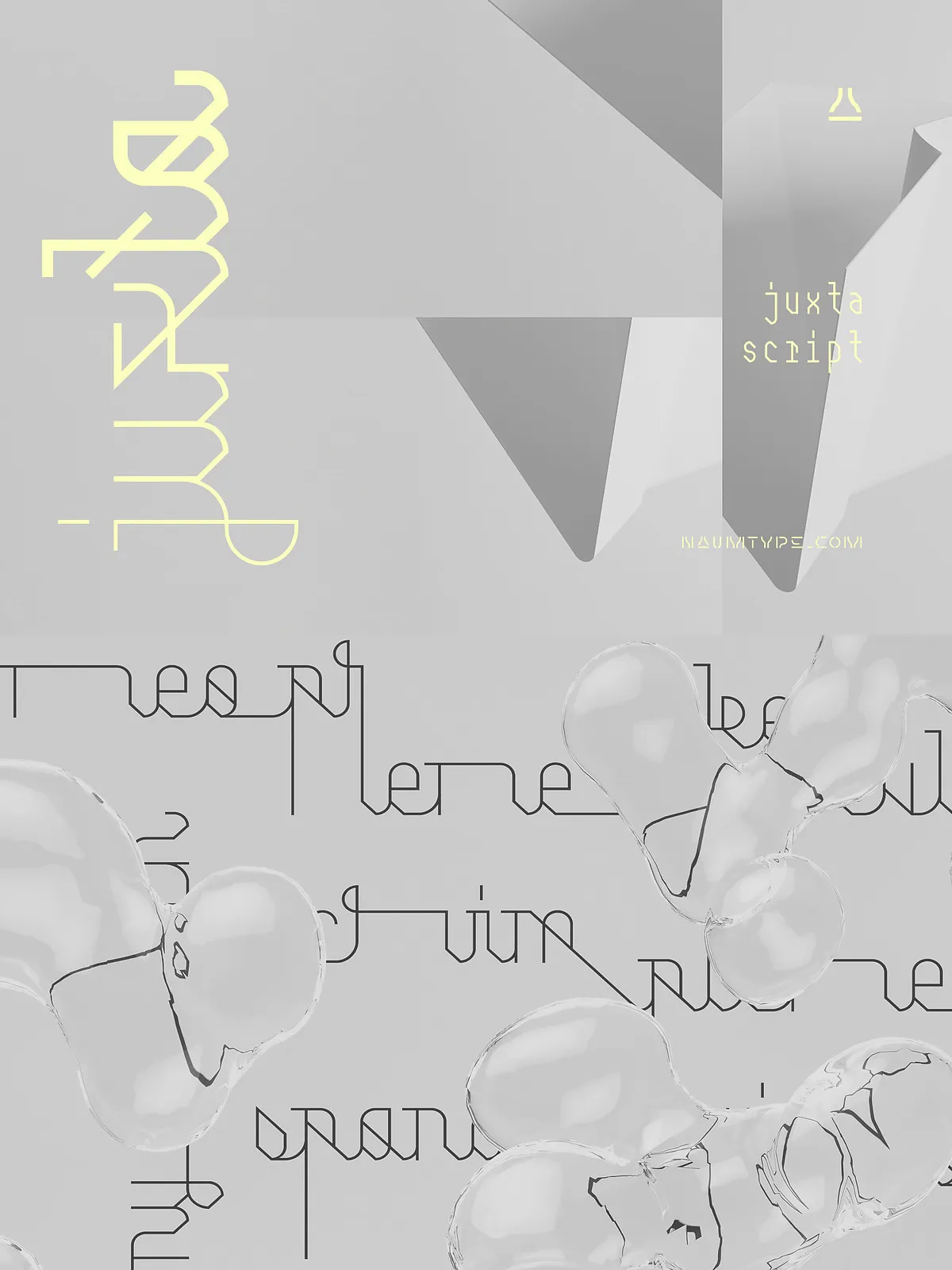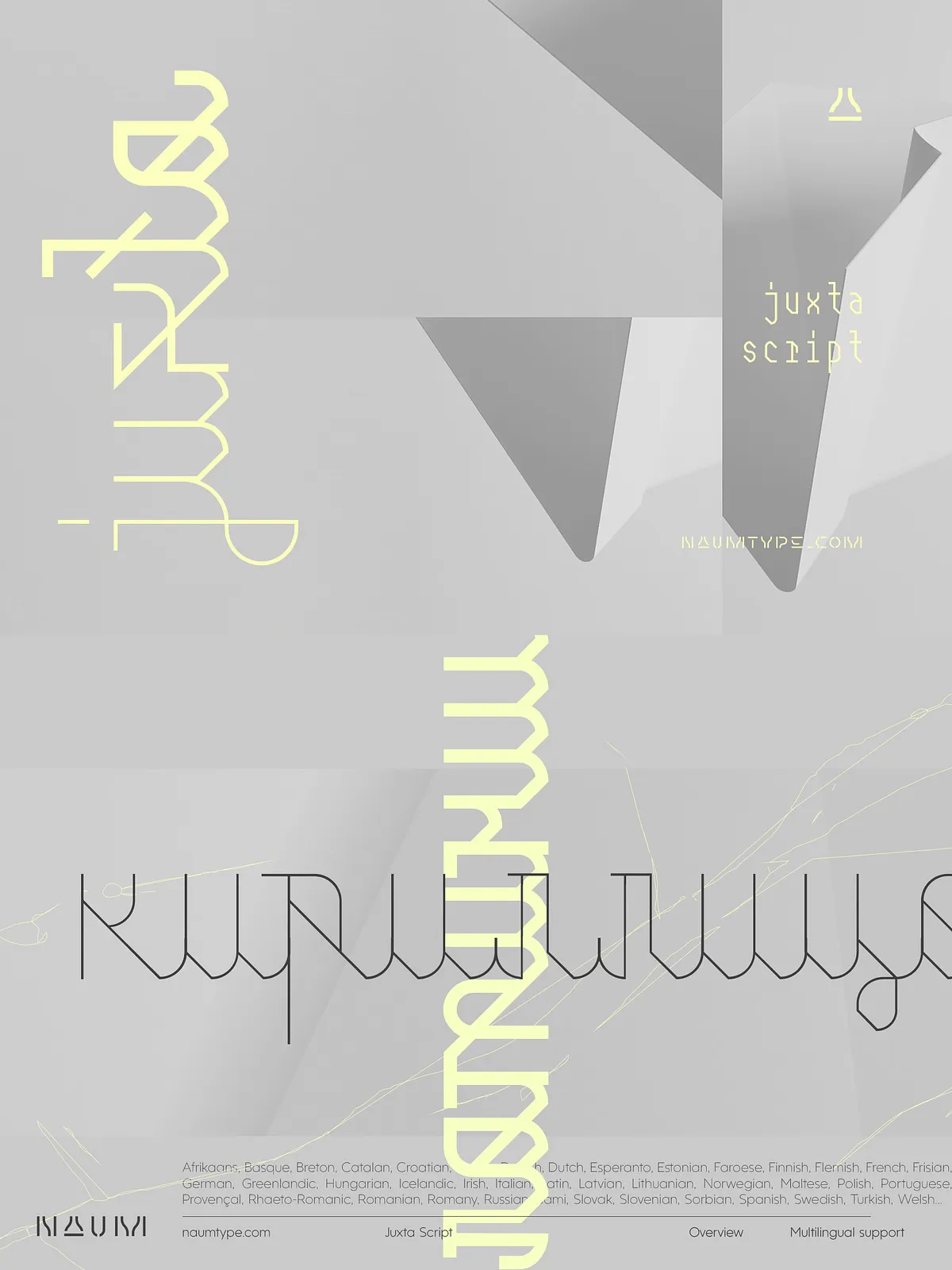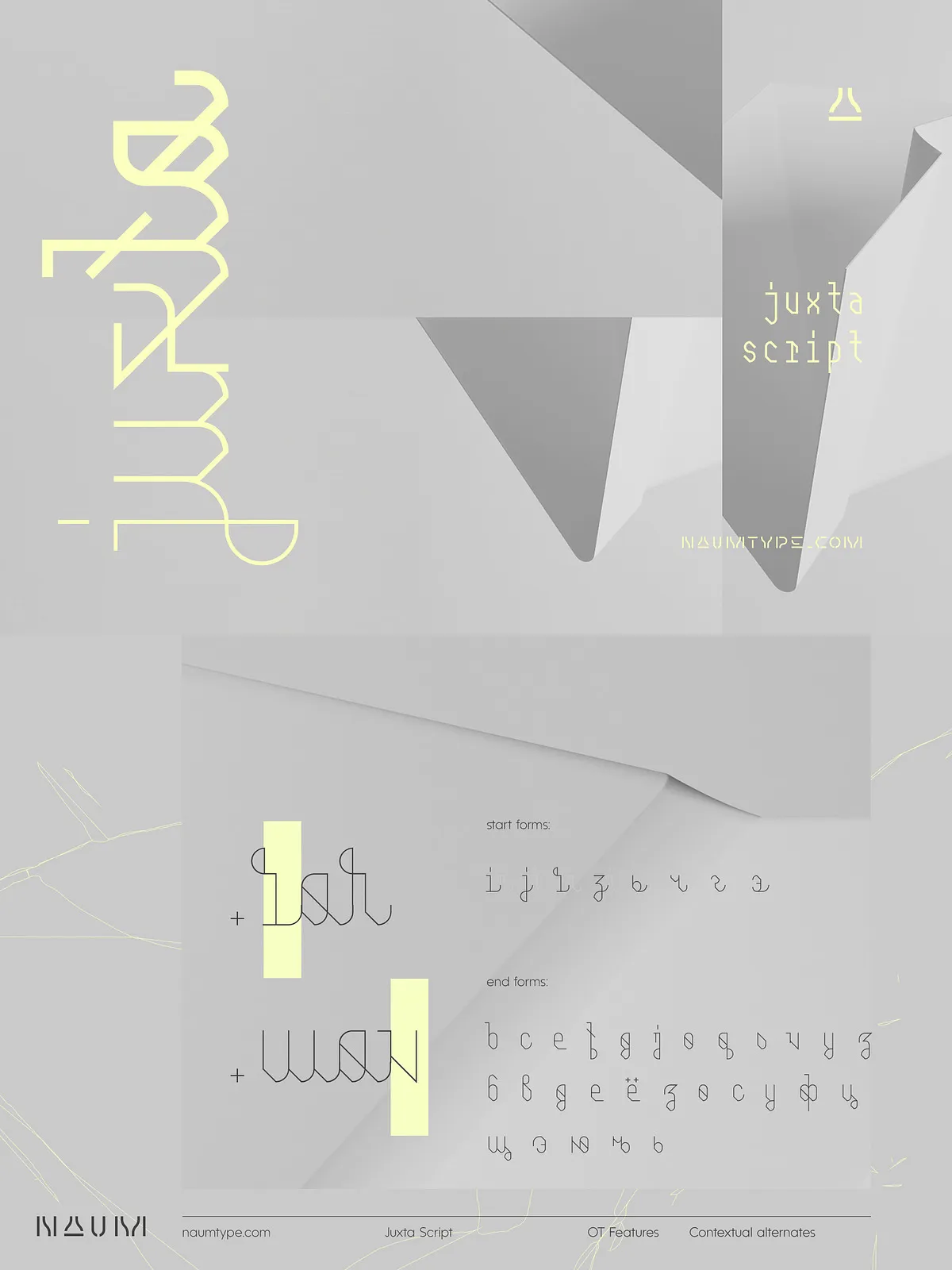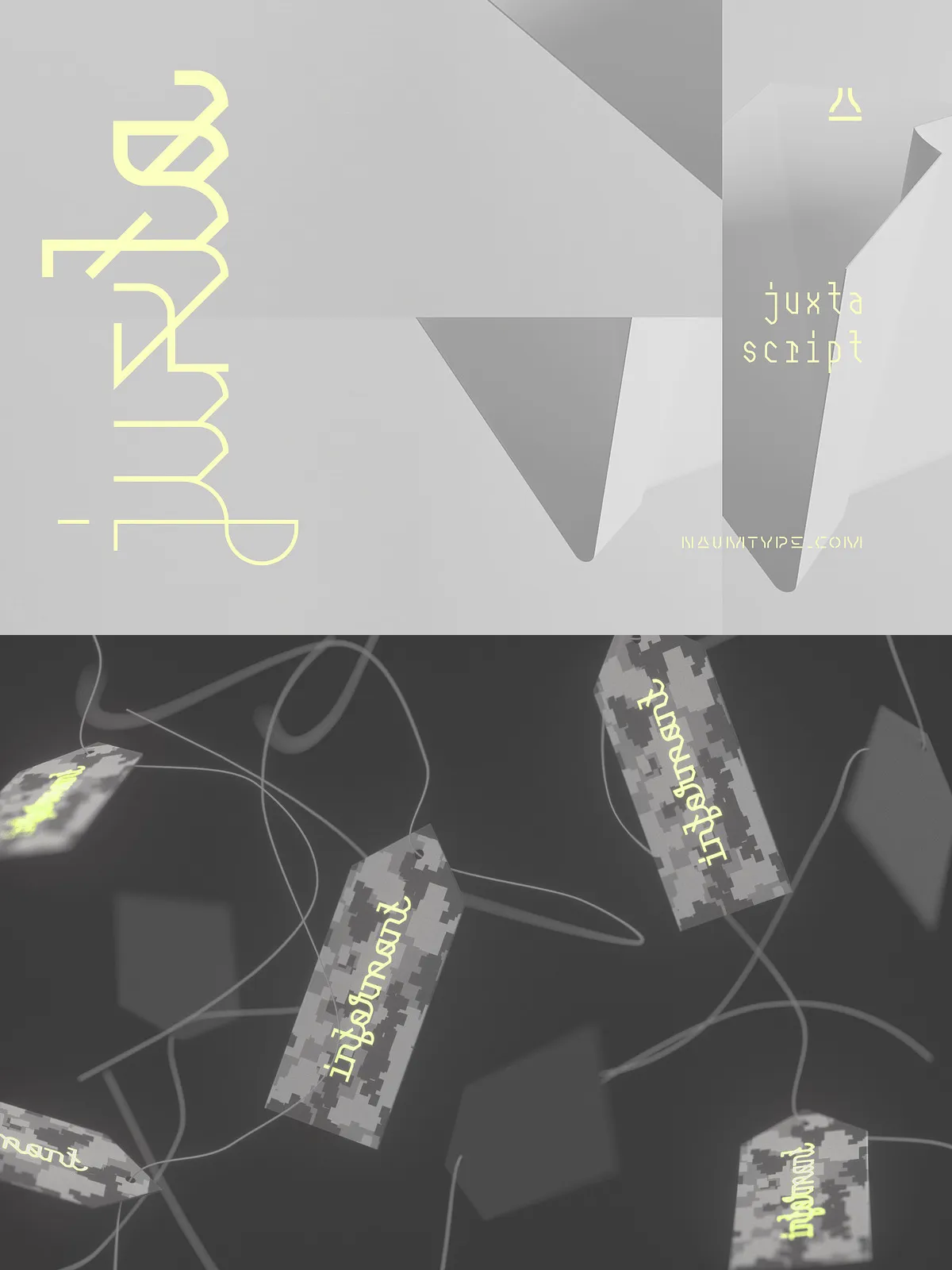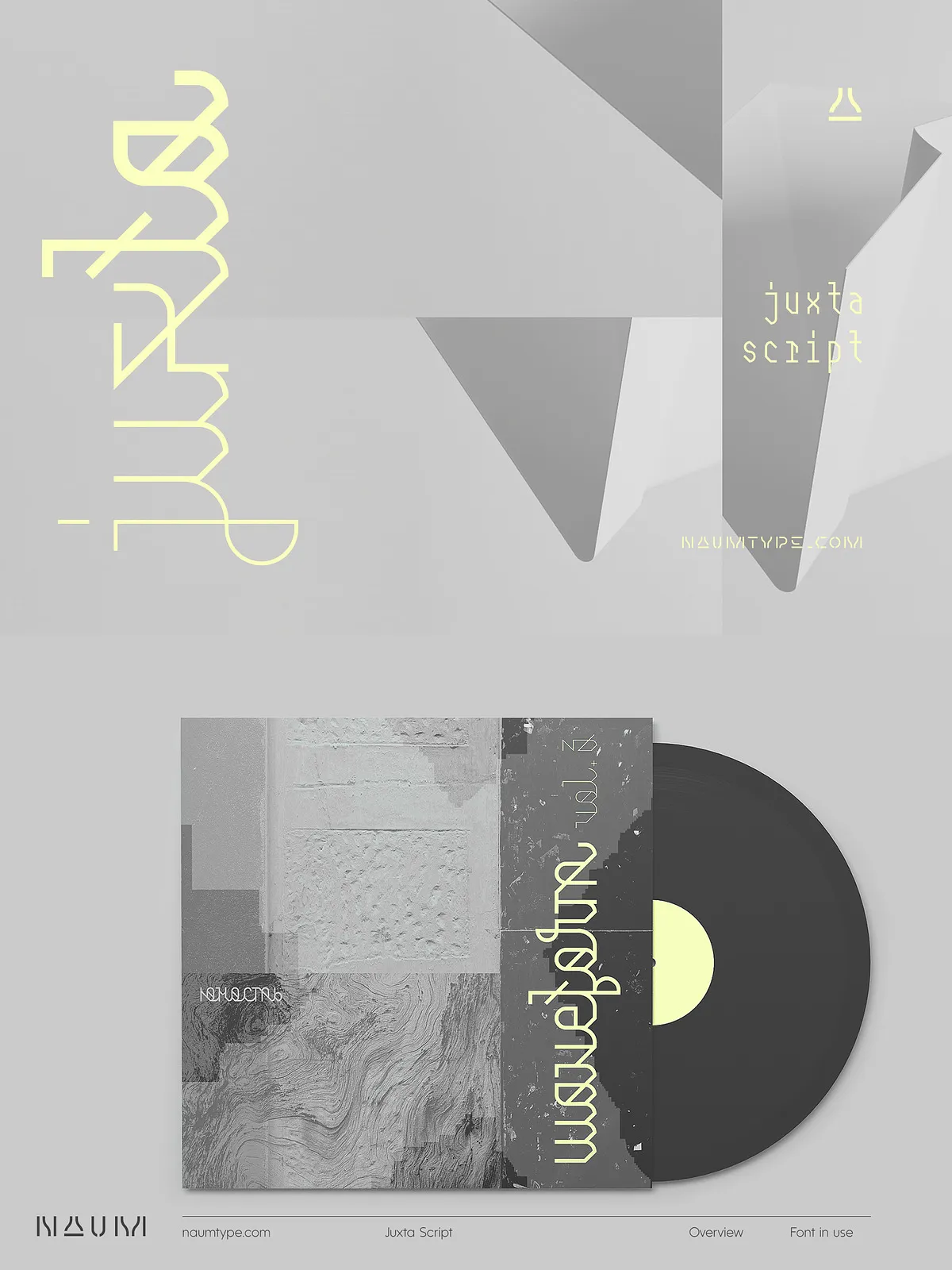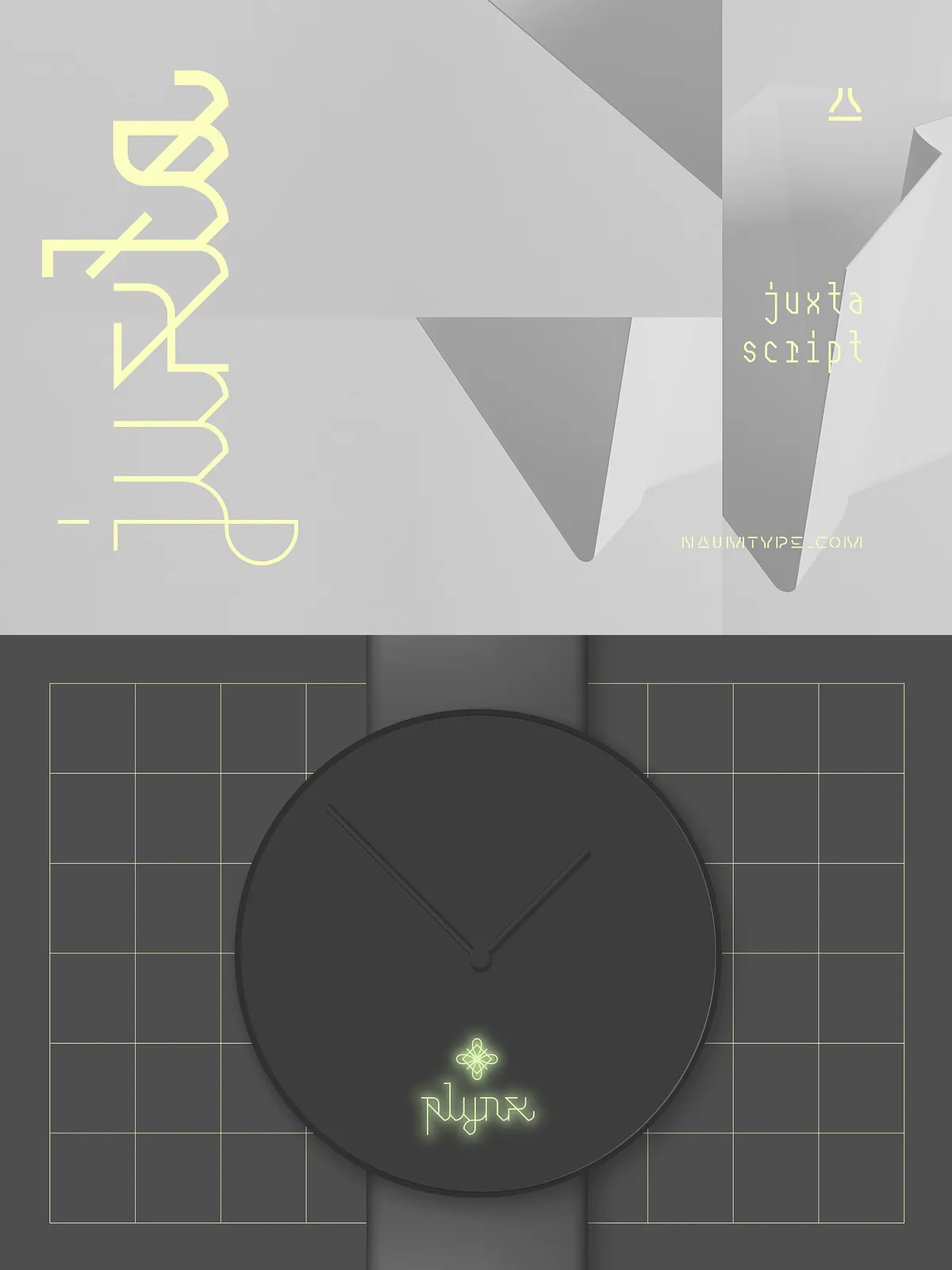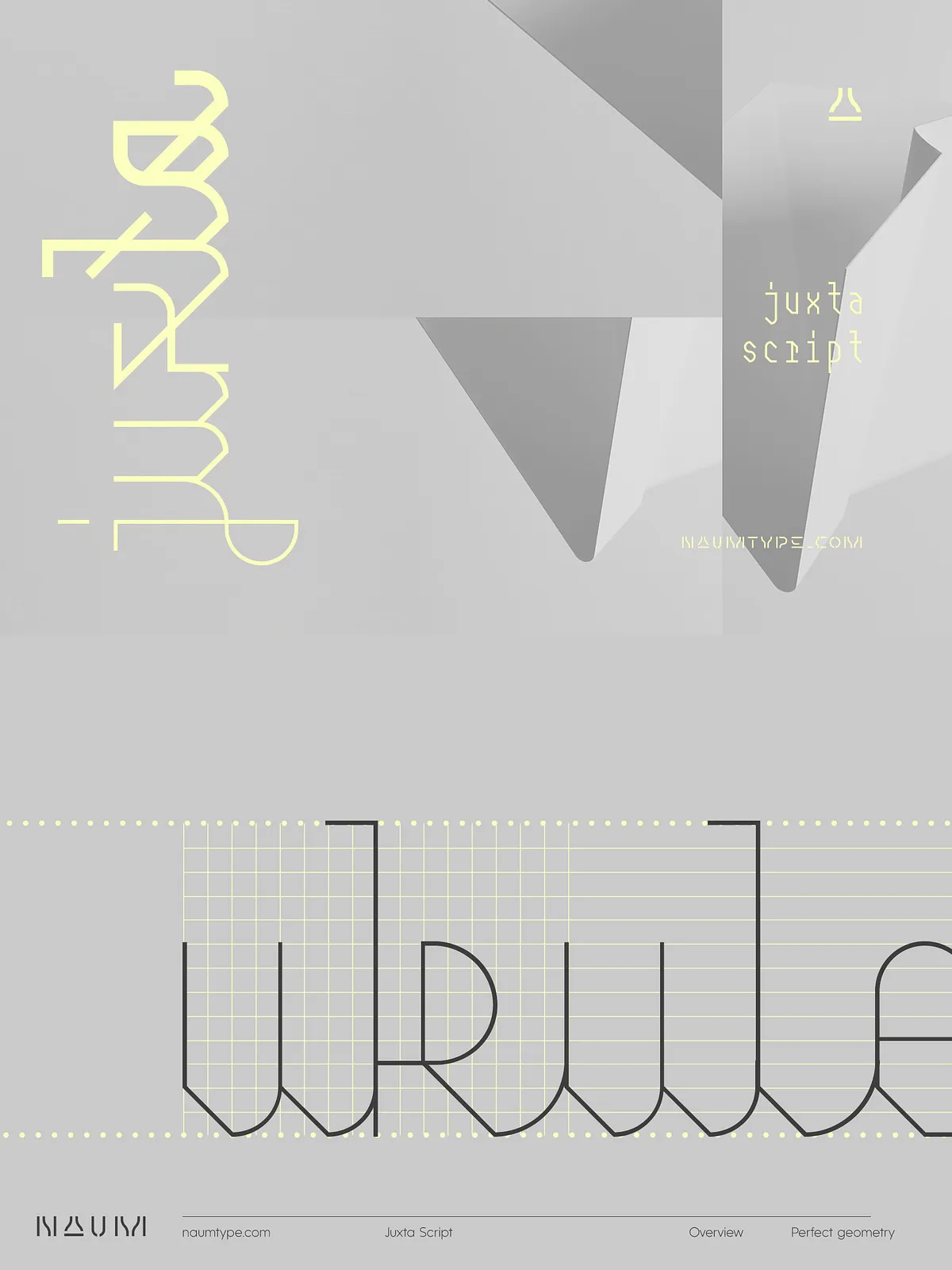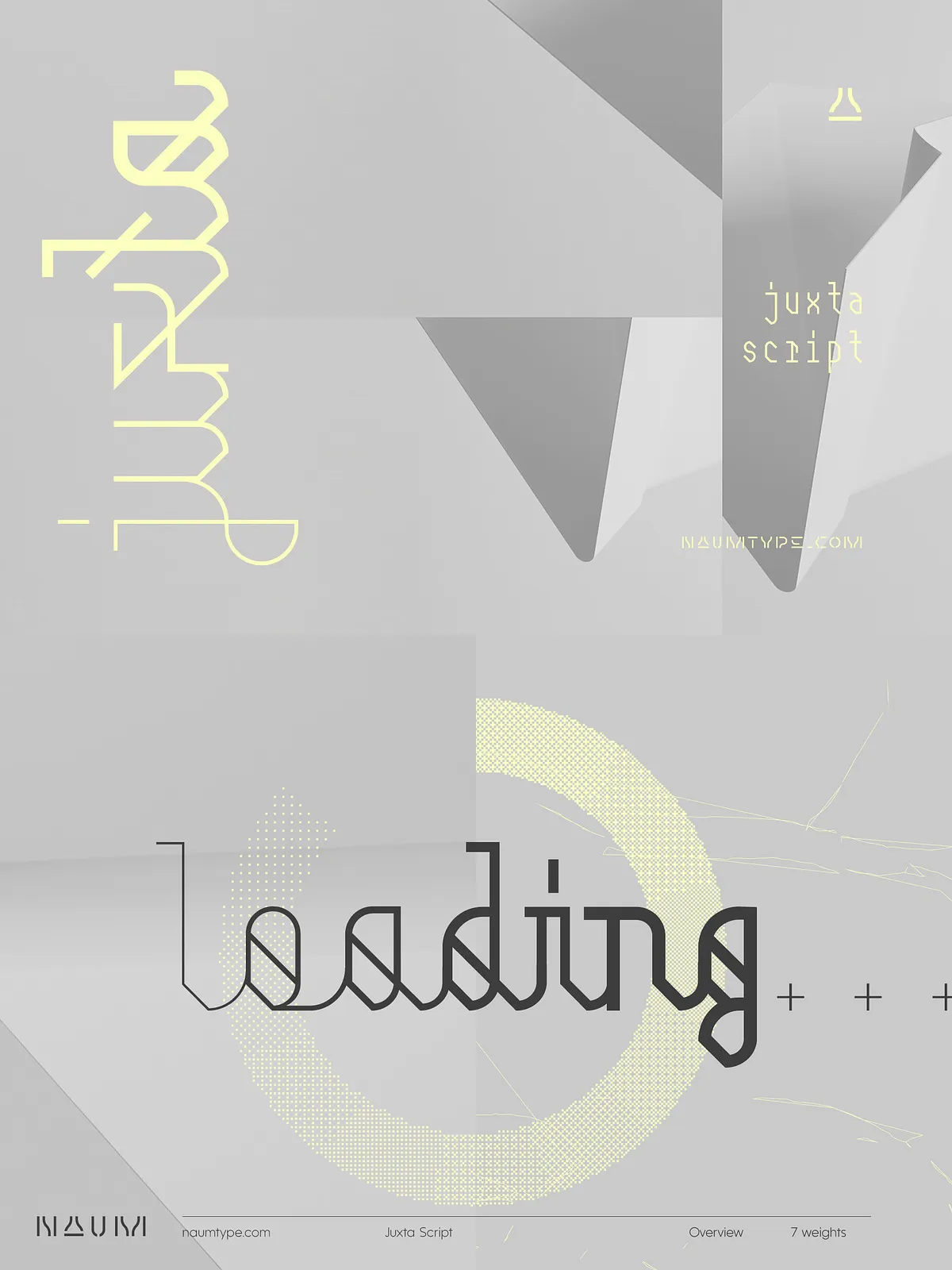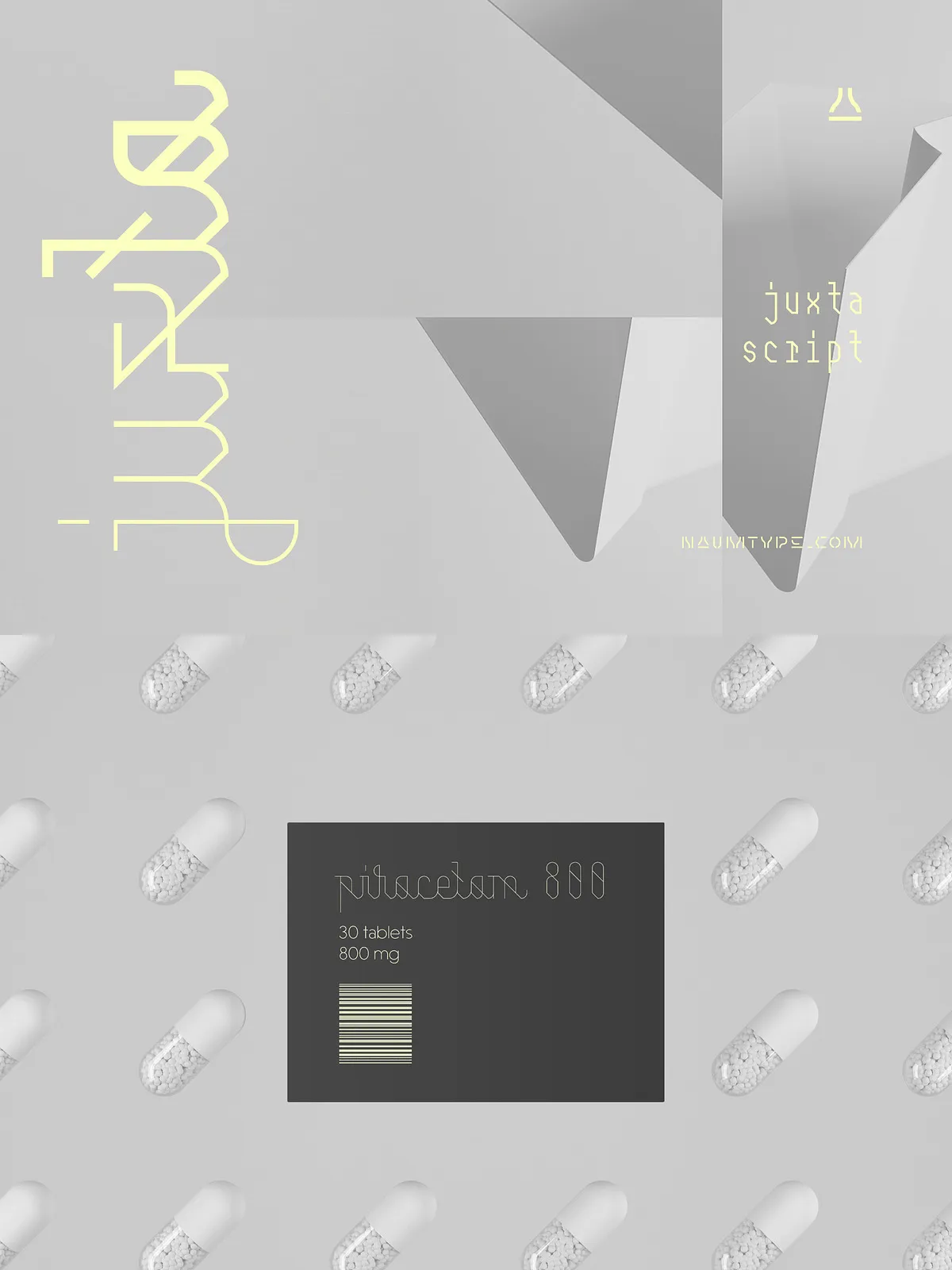
Introducing Juxta Script—a radical fusion of opposites that redefines typographic expression. Born from the concept of “juxtaposition,” this geometric monolinear script family boldly blends the rigid structure of monospaced sans serifs with the elegant flow of a monolinear script. The result? A striking typeface that bridges programming logic and artistic fluidity—perfect for designers who demand both order and soul in their work.
Every character is meticulously engineered with a consistent stroke width and grid-aligned geometry, echoing the clarity of code editors and technical fonts. Yet, beneath this disciplined framework lies a lyrical script form—graceful loops, sweeping curves, and soft transitions that whisper artistry. It’s not just a font; it’s a dialogue between precision and emotion, logic and rhythm.
Design Philosophy: Nordic Minimalism Meets Artistic Innovation
Juxta Script draws deep inspiration from Scandinavian design principles: clean lines, functional beauty, and restrained elegance. Its grid-based foundation reflects architectural order, while subtle decorative elements—such as carefully placed cross-out lines on certain letters—introduce a touch of whimsy and visual intrigue.
This careful balance of restraint and character makes Juxta Script ideal for projects that value both minimalism and expressive detail. From tech brands to editorial layouts, from digital interfaces to artist portfolios, it delivers a modern aesthetic with soul.
• Key Design Features:
- 7 Weights: From Light to Black, offering full typographic control for headlines, body text, and logo treatments.
- Start & End Forms: Pre-designed letter starts and finishes ensure seamless word composition, maintaining visual flow in long texts.
- Ligatures & Alternatives: Enhance text cohesion and add stylistic flair with hand-crafted ligatures and multiple stylistic options.
- Stylistic Alternates: Swap out standard characters for artistic variations—perfect for logos, branding, or standout headlines.
- 568 Glyphs: Rich character set with extended punctuation, currency symbols, and multilingual support.
Seamless Integration Across Platforms and Projects
With support for Latin Extended A (covering Western and Central European languages) and Cyrillic (including Russian, Ukrainian, and more), Juxta Script is built for global use—ideal for international design teams and multilingual branding.
Applications: Where Juxta Script Shines
This is where form meets function—where design takes a bold, unique step forward.
• Perfect For:
- Branding & Identity Systems: Create standout logos and visual identities that communicate innovation and artistic integrity.
- Headlines & Magazine Layouts: Command attention with elegant, high-impact typography that stands out in editorial design.
- Website Headers & UI Elements: Use its dynamic balance of structure and flow to create engaging web experiences.
- Code-Integrated Design: Pair it with monospaced coding fonts to visually distinguish creative code commentary or documentation with style.
- Artistic Typography & Visual Storytelling: Turn text into a form of visual art—ideal for posters, album covers, and digital illustrations.
- Design Briefs & Creative Presentations: Add a unique, modern voice to your pitch decks and project proposals.
Don’t just choose a font—choose a mindset. Juxta Script isn’t just typography; it’s a commitment to thoughtful innovation, to design that dares to combine opposites.
Whether you’re crafting a tech startup logo, designing a minimalist poster, or adding poetic flair to a digital narrative, Juxta Script gives you the tools to stand out—without losing clarity.